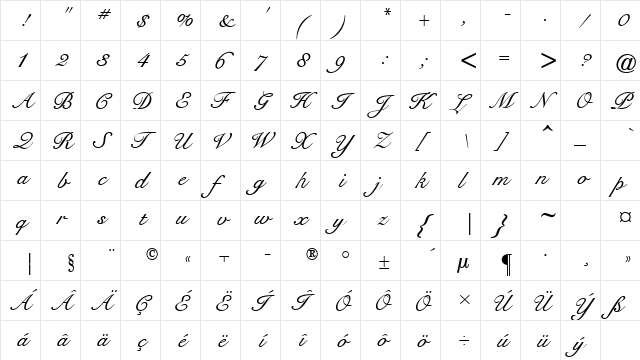
Signet Roundhand Italic Font Preview
Signet Roundhand Italic
Design Context for Signet Roundhand Typeface
Signet Roundhand flows with the natural rhythm of handwritten lettering, making it ideal for designs that call for warmth and personal expression.